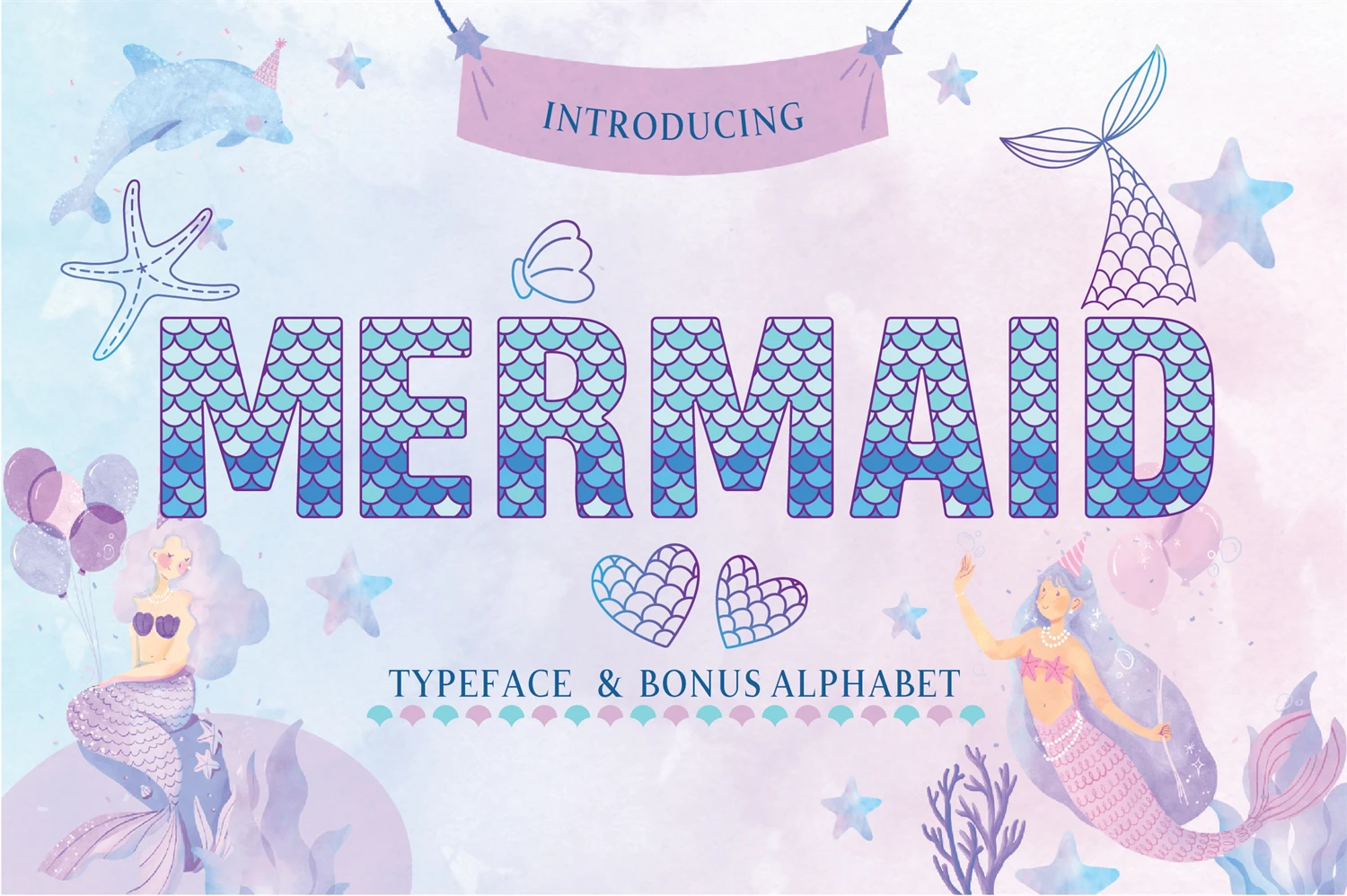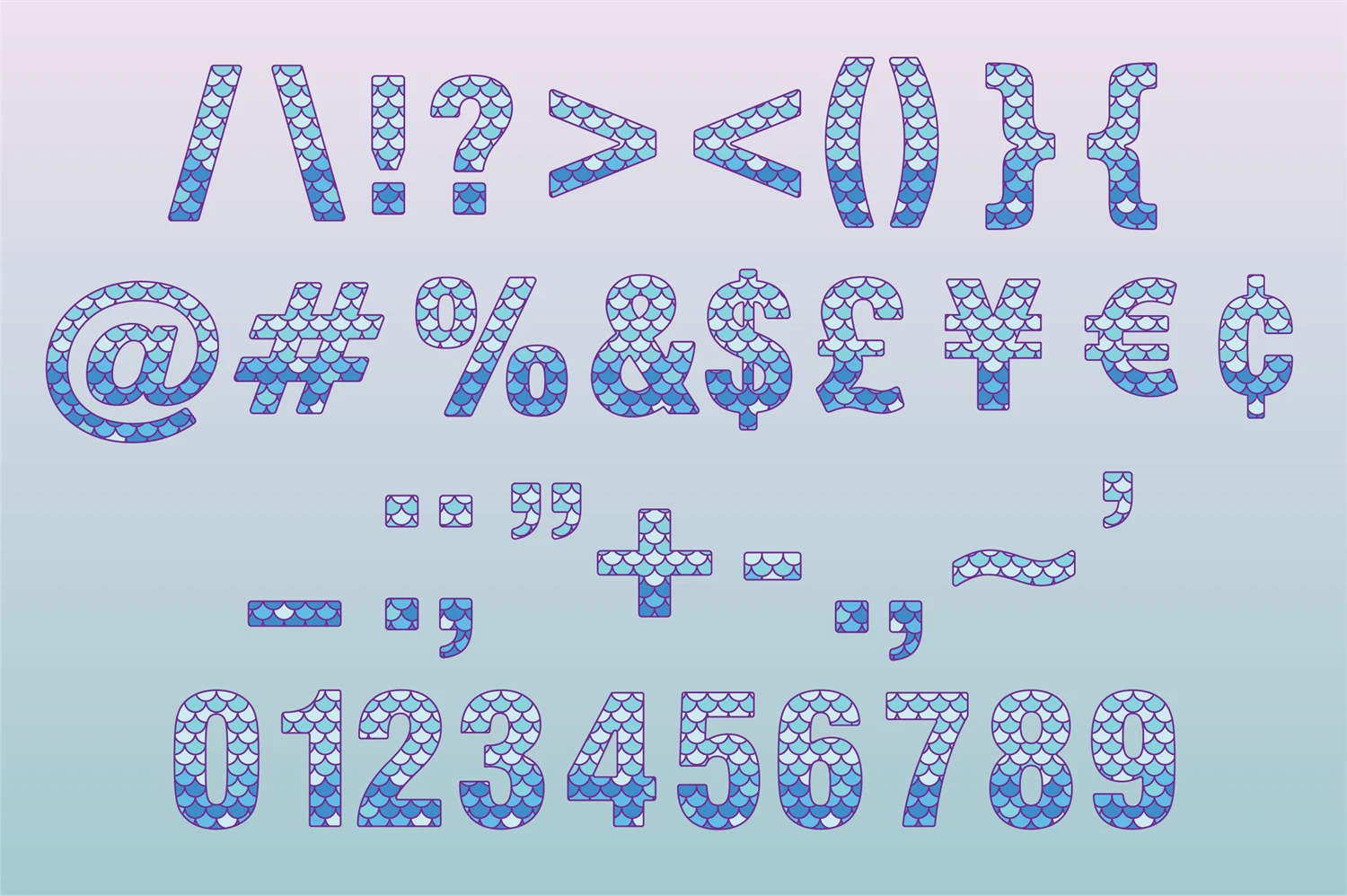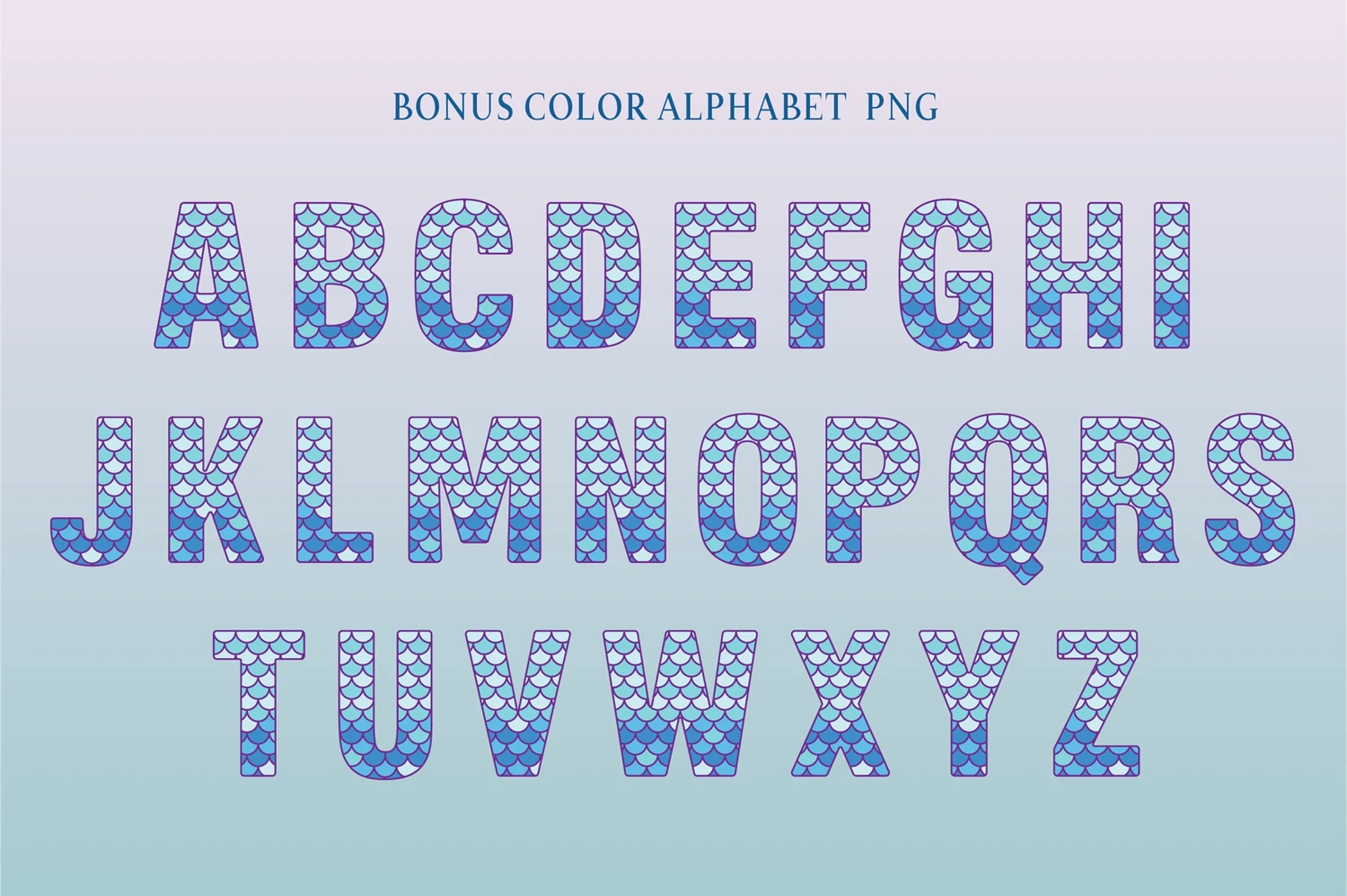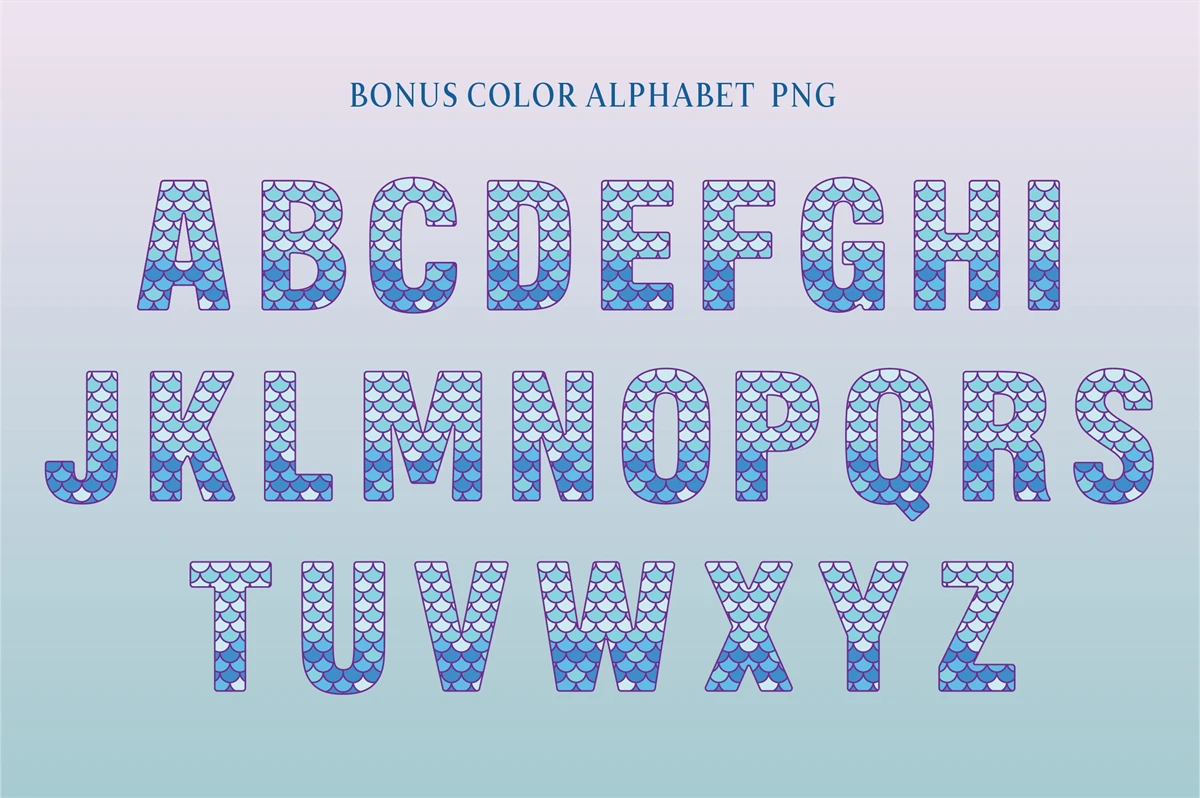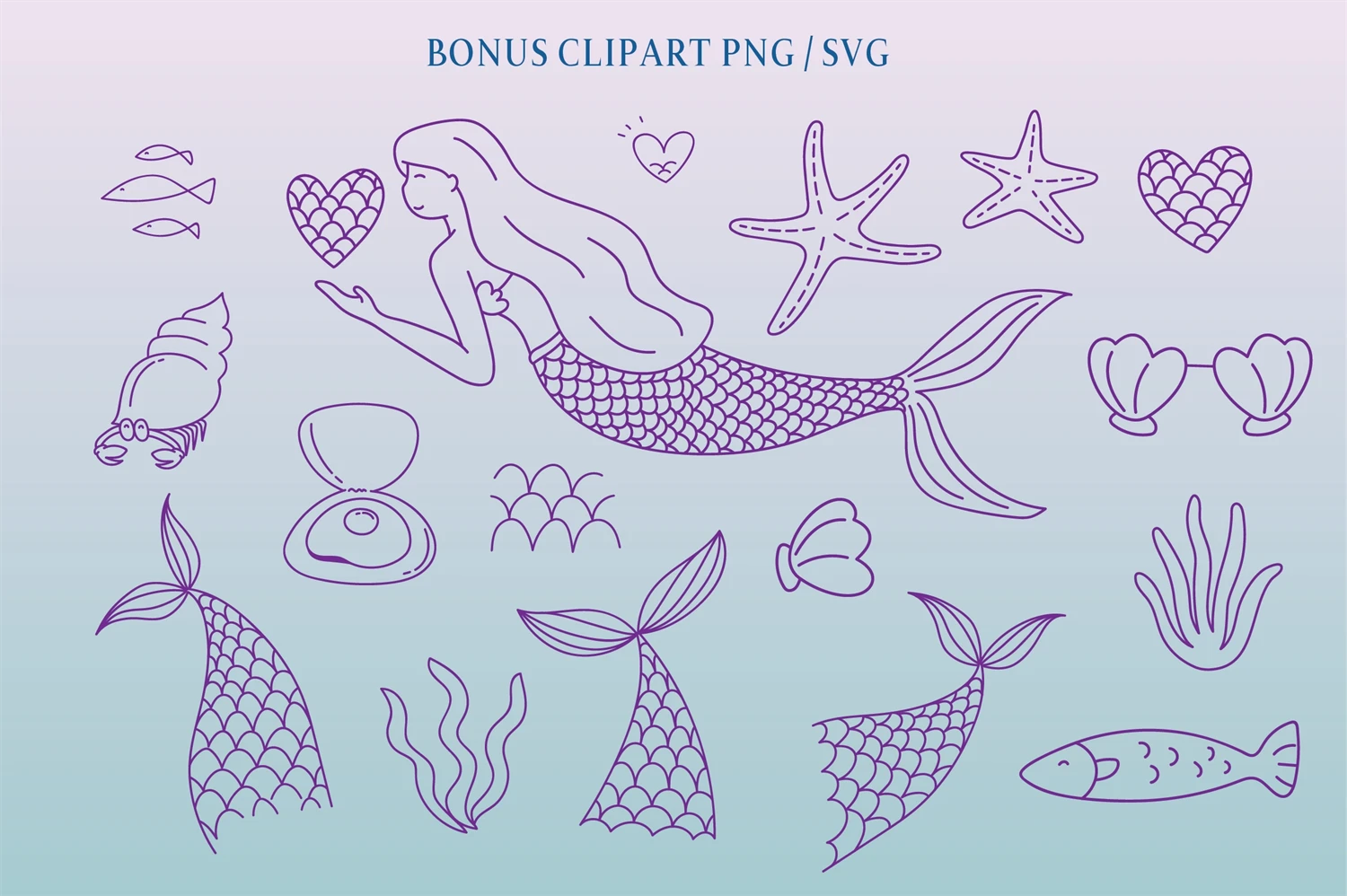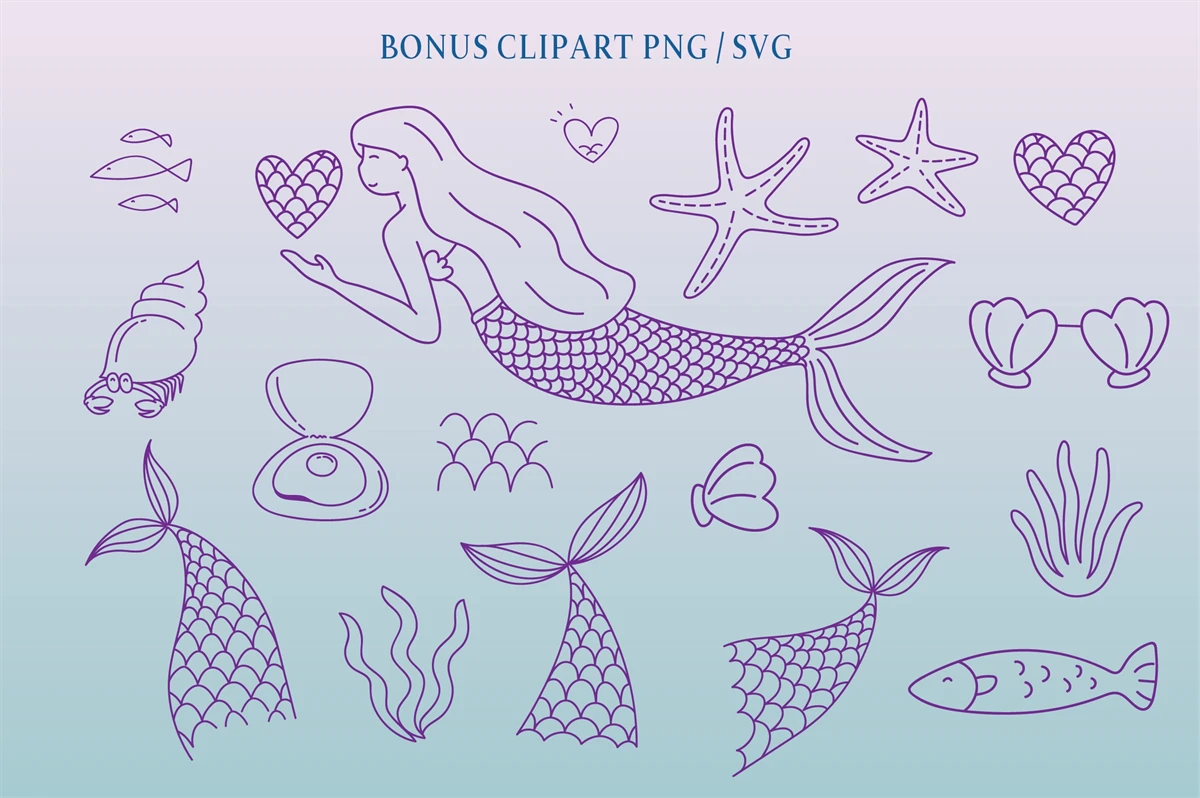
Mermaid is a cute and unique decorative font. This font will be an incredible asset to your fonts library, as it has the potential to create any project.